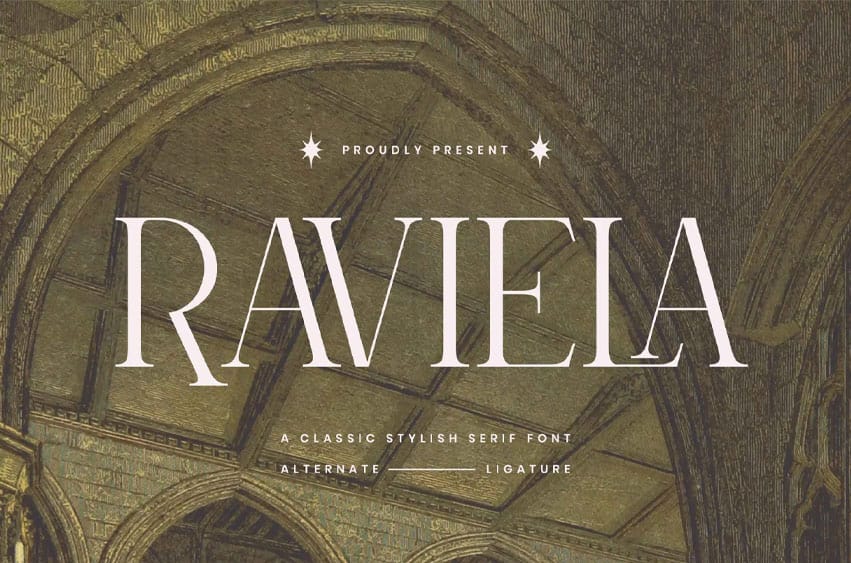
Raviela Font Elegant Serif Font Raviela is a refined serif font with timeless elegance. Featuring high contrast strokes, graceful curves, and classic forms, it’s perfect for creating luxurious and sophisticated designs. Ideal for editorials, fashion branding, wedding stationery, and premium packaging, Raviela brings a touch of class to both modern and traditional layouts.
Font Features:
- Uppercase & lowercase letters
- Numbers & basic punctuation
- Alternates & ligatures
Perfect for:
Luxury branding, wedding invitations, logos, magazines, packaging design, and any project that needs a touch of elegance.